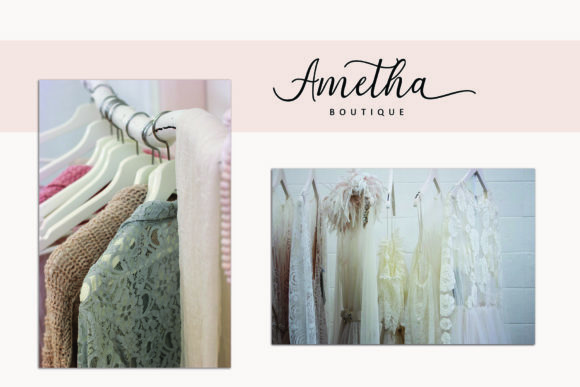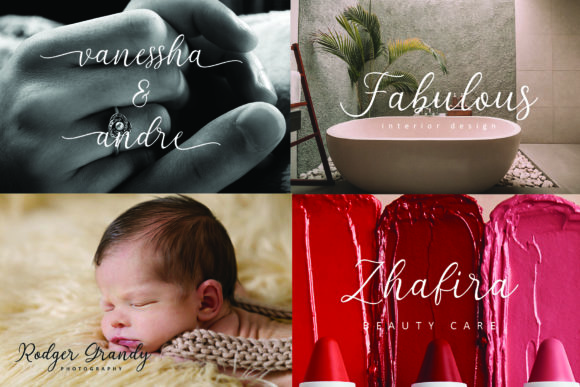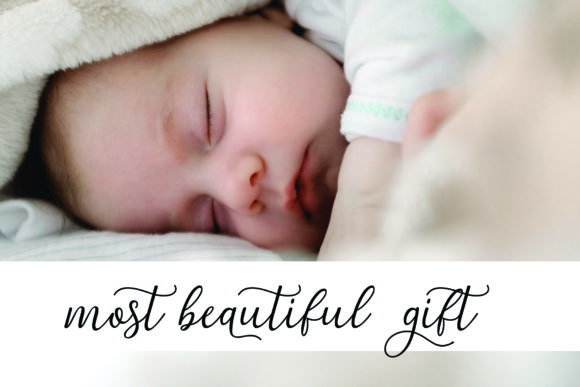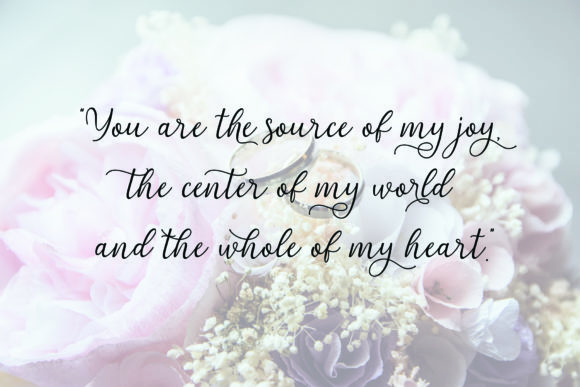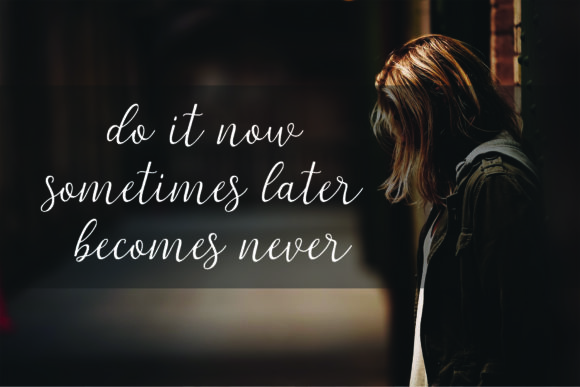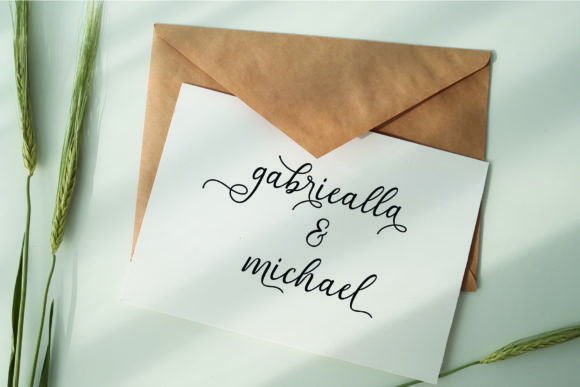
Discover the Elegance of Gabriella Font: A Romantic Choice for Your Designs
Are you looking for a font that exudes romance, elegance, and luxury? Look no further than the Gabriella font. This beautiful typeface is perfect for designers and crafters who want to add a touch of sophistication to their work. In this article, we’ll explore the features of Gabriella font, its amazing alternatives, and swashes, and provide you with inspiration for using it in your designs.
What is Gabriella Font?
Gabriella is a romantic font that is designed to evoke feelings of love, elegance, and refinement. Its flowing lines, intricate details, and luxurious feel make it perfect for a variety of design projects, from wedding invitations and stationery to branding and advertising.
Key Features of Gabriella Font
- Romantic and Elegant Design: Gabriella font features a beautiful, cursive design that is perfect for creating romantic and elegant designs.
- Swashes and Alternates: The font comes with a range of swashes and alternate characters, allowing you to add a personal touch to your designs.
- High-Quality Typography: Gabriella font is designed with high-quality typography in mind, ensuring that your designs look professional and polished.
Amazing Alternatives to Gabriella Font
While Gabriella font is a stunning choice for many design projects, you may want to explore other options to find the perfect fit for your work. Here are some amazing alternatives to consider:
- Pacifico: A beautiful, modern script font that features a similar elegant and refined feel to Gabriella.
- Great Vibes: A fun and stylish script font that features a more playful take on the romantic and elegant feel of Gabriella.
- Alex Brush: A lovely, handwritten font that features a similar whimsical and romantic feel to Gabriella.
- Lobster: A classic, elegant script font that features a more traditional take on the romantic and refined feel of Gabriella.
Using Gabriella Font Swashes and Alternates
One of the best features of Gabriella font is its range of swashes and alternate characters. These can be used to add a personal touch to your designs and create a truly unique look. Here are some tips for using Gabriella font swashes and alternates:
- Use Swashes to Add Flourish: Swashes can be used to add a touch of elegance and sophistication to your designs. Try using them to connect words or add a decorative flourish to your text.
- Experiment with Alternates: Gabriella font comes with a range of alternate characters, allowing you to experiment with different looks and styles. Try using different alternates to create a unique and personalized look.
Inspiration for Using Gabriella Font
Gabriella font is a versatile typeface that can be used in a variety of design projects. Here are some ideas to get you started:
- Wedding Invitations and Stationery: Gabriella font is perfect for creating romantic and elegant wedding invitations and stationery.
- Branding and Advertising: The font’s luxurious feel makes it perfect for branding and advertising projects, such as luxury product packaging and high-end advertising campaigns.
- Signage and Displays: Gabriella font can be used to create beautiful and eye-catching signage and displays, such as storefront signs and exhibition displays.
Gabriella font is a stunning and elegant typeface that is perfect for designers and crafters who want to add a touch of romance and sophistication to their work. With its range of swashes and alternate characters, Gabriella font offers endless possibilities for creative expression. Whether you’re designing wedding invitations, branding materials, or signage, Gabriella font is sure to impress.